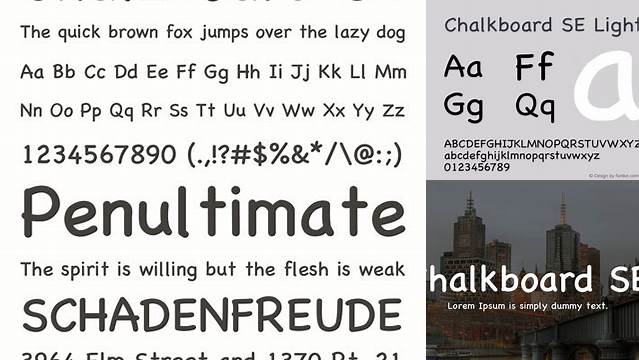
Chalkboard SE Font: Free Download & Creative Uses
Hey guys! Ever wanted to give your designs that cool, hand-drawn, chalkboard vibe? Well, you're in luck! The Chalkboard SE font is here to save the day. This font is perfect for adding a touch of whimsy and authenticity to your projects. Let's dive into everything you need to know about getting your hands on this awesome font and how to use it.
1. What is Chalkboard SE Font?
So, what exactly is Chalkboard SE? It's a sans-serif typeface designed to mimic the look of handwriting on a chalkboard. The "SE" stands for Special Edition, and it’s known for its clean, legible design while still maintaining that chalky texture. Chalkboard SE font is widely recognized for its friendly and approachable aesthetic, making it a favorite for educational materials, posters, and anything that needs a personal touch. The beauty of this font lies in its ability to evoke nostalgia and a sense of craftsmanship. Whether you're working on a school project or designing a quirky advertisement, Chalkboard SE can bring your vision to life.
The uniqueness of Chalkboard SE font comes from its carefully crafted letterforms, which are designed to look as if they were freshly drawn with chalk. This attention to detail makes it stand out from generic fonts. It's versatile enough to be used in various design contexts, from digital to print. Plus, its readability ensures that your message is always clear and engaging. If you’re looking for a font that combines simplicity with character, Chalkboard SE font is definitely worth considering. It’s a great way to add personality to your work and connect with your audience on a more intimate level.
5. Using Chalkboard SE in Graphic Design
Chalkboard SE font shines in various graphic design applications. Its playful yet readable nature makes it ideal for posters, flyers, and social media graphics. It’s particularly effective in designs aimed at children or educational contexts. Consider using it for headings, short paragraphs, or even as a decorative element. The font’s distinctive style can instantly add character and charm to your designs. When using Chalkboard SE font, it’s essential to pair it with complementary fonts that don’t clash with its unique aesthetic.